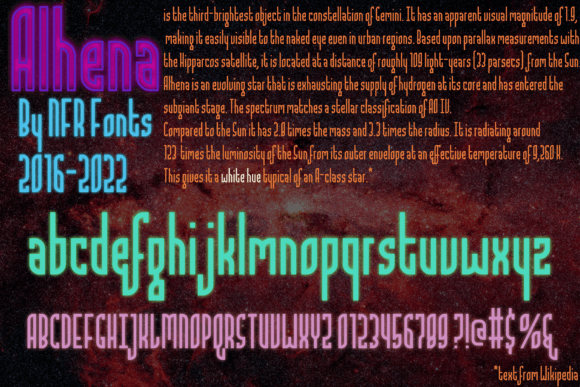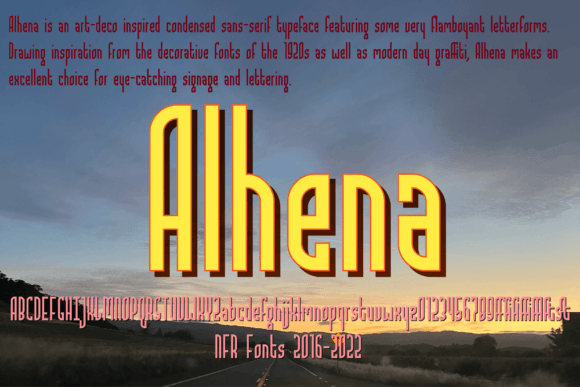
Introducing Alhena Font: A Dazzling Art-Deco-Inspired Typeface
Are you looking for a font that exudes luxury, sophistication, and playfulness? Look no further than Alhena Font, an art-deco-inspired condensed sans-serif typeface that’s sure to make your designs shine. With its unique blend of vintage flair and modern edge, Alhena is the perfect choice for designers and crafters seeking to add a touch of glamour to their work.
The Inspiration Behind Alhena
Alhena Font draws inspiration from the decorative fonts of the 1920s and early 1930s, a era renowned for its opulence and extravagance. The art-deco movement, with its geometric shapes, metallic materials, and ornate details, has been a significant influence on the design of Alhena. The font’s creator has skillfully blended the elegance of this bygone era with the bold, playful spirit of modern-day graffiti, resulting in a truly one-of-a-kind typeface.
What Makes Alhena So Special?
Alhena’s unique design features make it an excellent choice for a variety of applications. Some of the key characteristics that set Alhena apart include:
- Condensed sans-serif design: Alhena’s sleek, streamlined letterforms make it perfect for use in titles, headings, and signage where space is limited.
- Playful and flamboyant letterforms: Alhena’s letters are infused with a sense of playfulness and flair, making it ideal for designs that require a touch of personality and whimsy.
- Art-deco inspiration: Alhena’s vintage roots give it a sophisticated, luxurious feel that’s perfect for high-end designs and branding.
Use Cases for Alhena Font
Alhena’s versatility and unique design make it suitable for a wide range of applications, including:
- Signage: Alhena’s bold, eye-catching design makes it perfect for use in signage, whether it’s for a storefront, event, or exhibition.
- Posters and flyers: Alhena’s playful, attention-grabbing letterforms make it an excellent choice for posters and flyers that need to stand out.
- Lettering and titling: Alhena’s elegant, sophisticated design makes it ideal for use in lettering and titling applications, such as movie titles, book covers, and magazine headings.
- Branding and packaging: Alhena’s luxurious, high-end feel makes it a great choice for branding and packaging designs that require a touch of sophistication.
Tips for Using Alhena Font Effectively
To get the most out of Alhena Font, here are a few tips to keep in mind:
- Use it sparingly: Alhena’s bold design can be overwhelming if overused. Use it sparingly to add emphasis and create visual interest.
- Experiment with colors and textures: Alhena’s design lends itself well to bold, bright colors and metallic textures. Experiment with different effects to add depth and visual interest.
- Pair it with complementary fonts: Alhena’s unique design makes it a great choice for pairing with other fonts. Try pairing it with a clean, sans-serif font for a striking contrast.
Alhena Font is a truly unique and versatile typeface that’s sure to add a touch of glamour and sophistication to your designs. With its art-deco inspiration, playful letterforms, and bold design, Alhena is the perfect choice for designers and crafters seeking to create eye-catching signage, lettering, posters, and titling. Whether you’re looking to add a touch of luxury to your branding or create a bold statement piece, Alhena Font is an excellent choice.